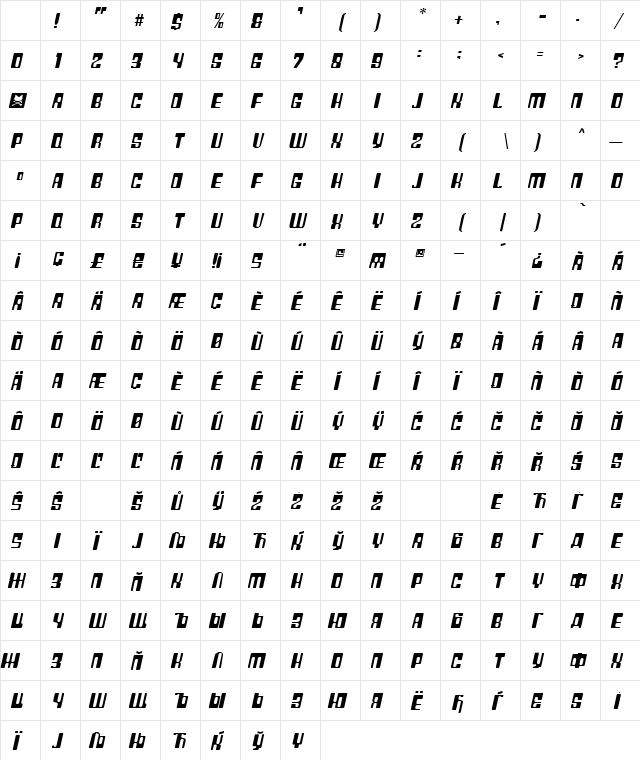
Complete Plastic No.20 Regular glyph index. Displaying only characters natively supported by Plastic No.20 Regular font.
Plastic No.20 is a composed and adaptable typeface that performs quietly and consistently across a wide range of design contexts.